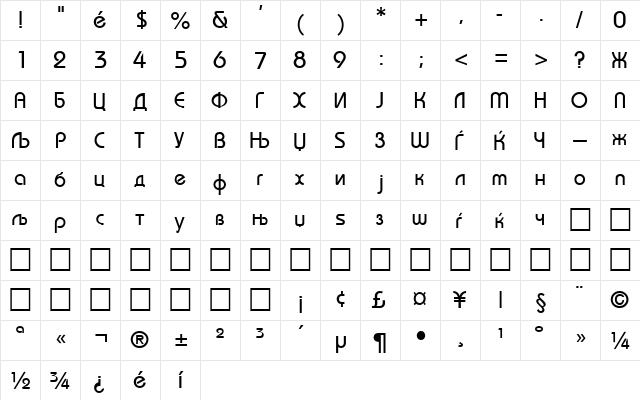
Macedonian Bahamas Regular Font Preview
Macedonian Bahamas Regular
Macedonian Bahamas Regular Font Details
Design Context for Macedonian Bahamas Typeface
Macedonian Bahamas offers clean, dependable letterforms without strong stylistic allegiance, making it a practical choice for designers who need flexibility.